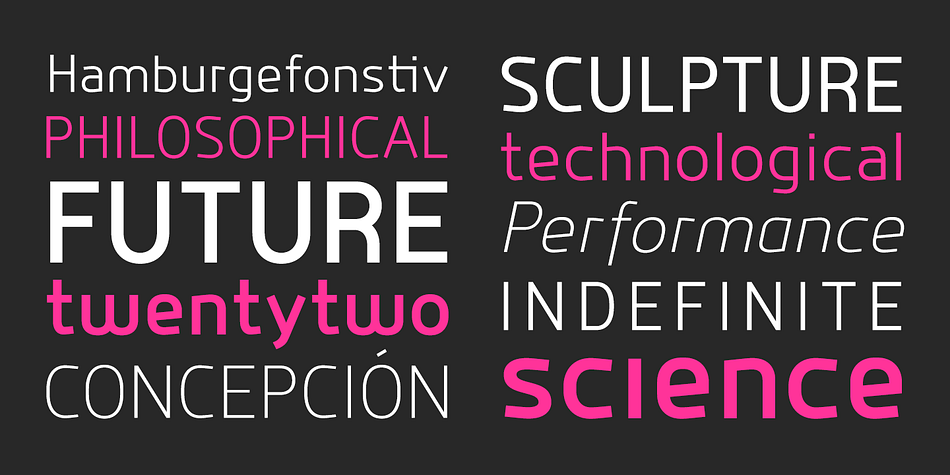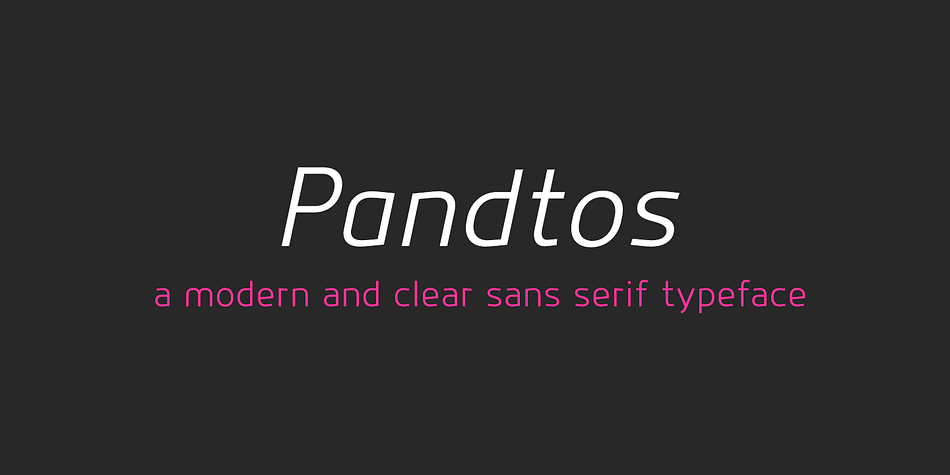
Pandtos is a sans serif font family. This typeface has eight styles and was published by dayflash.
Pandtos is a clear sans serif typeface based on geometric shapes. Precise lines and accurate curves are the main characteristics of this fresh and modern font family. While unique letterforms constitute Pandtos’ distinctive appearance, extended widths, tall x-heights and clear shapes provide good legibility and nice readability even at smaller sizes. With its contemporary feel, Pandtos is suitable for almost any type of analogue and digital application.
The Pandtos font family includes unique letterforms, exclusive ligatures and extensive OpenType features. Pandtos comes in four weights with matching italics.